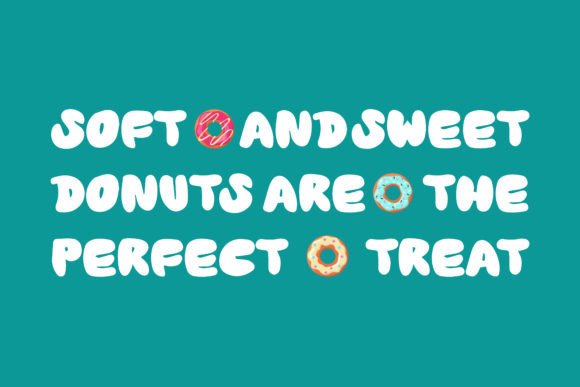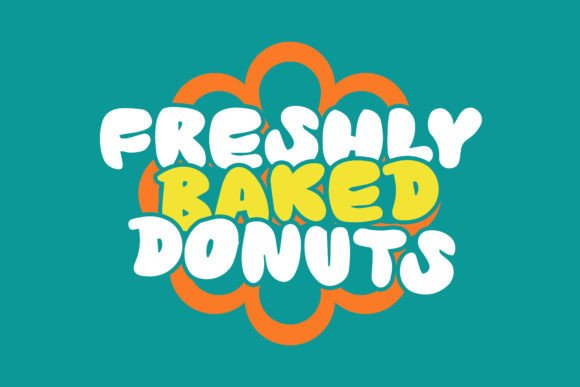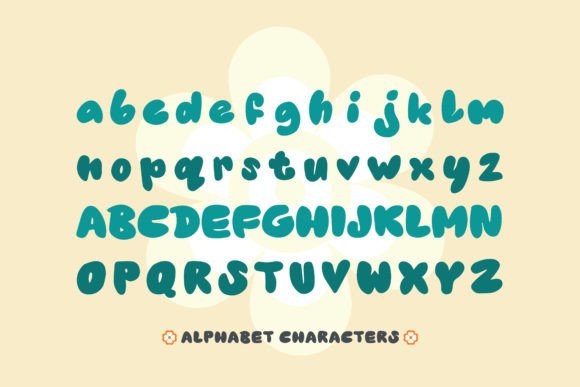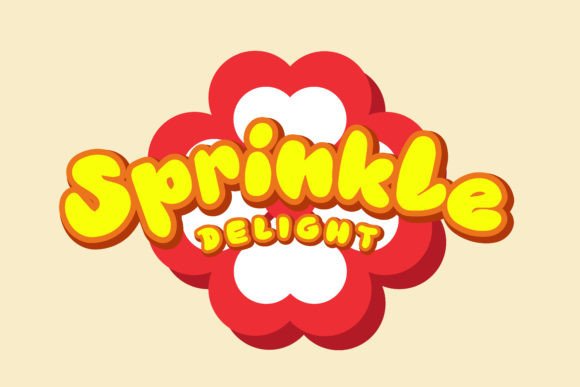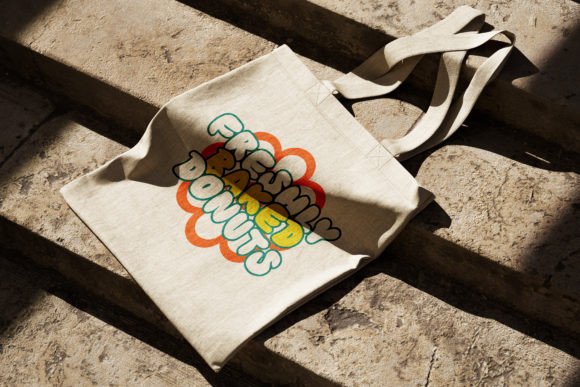
Introducing Bouncy: The Font That Brings Joy to Your Designs
Have you ever been working on a project, pouring your heart and soul into it, but just can’t seem to find the right font to bring it all together? I know I have. It was during one of those moments, while designing a children’s book, that I stumbled upon Bouncy – a lively and playful font that instantly brought energy and joy to my work.
The Bouncy Personality: Fun, Friendly, and Inviting
Bouncy is more than just a font – it’s an expression of joy. With its thick, rounded letters and smooth curves, it evokes a sense of fun and friendliness, perfect for designs that aim to be inviting, cheerful, and vibrant. The rounded, balloon-like shapes and soft edges offer a welcoming aesthetic, creating a lighthearted atmosphere that suits a wide range of creative needs, from children’s books to playful branding.
My Honest Review of Bouncy
So, what do I love about Bouncy? Here are a few things that make it stand out:
• ✨ Unique and playful style: Bouncy’s bold, bubbly style makes it stand out in any medium, adding a touch of whimsy and approachability to your work.
• ✅ Ease of use: The font is incredibly easy to read and works well in both digital and print formats.
• 💡 Versatility: Bouncy can be used for a wide range of creative projects, from children’s books to playful branding, and even social media graphics.
Of course, no font is perfect, and Bouncy has a few small quirks:
• 🤔 Limited use in formal designs: Bouncy’s playful style may not be suitable for formal designs, such as business reports or academic papers.
• ⚠️ Some letter combinations: A few letter combinations, such as “st” or “fi”, may not be as smooth as others.
The Backstory of Bouncy
Bouncy was designed with the intention of capturing the carefree essence of childhood and the delight of playfulness. Inspired by the world of fun and play, Bouncy reflects the carefree spirit of balloons, toys, and laughter. The rounded forms and thick strokes are designed to communicate warmth, friendliness, and energy, much like a bouncing ball.
What is Bouncy best used for? Bouncy is perfect for designs that aim to be inviting, cheerful, and vibrant, such as children’s books, playful branding, and social media graphics.
Is Bouncy suitable for formal designs? No, Bouncy’s playful style may not be suitable for formal designs, such as business reports or academic papers.